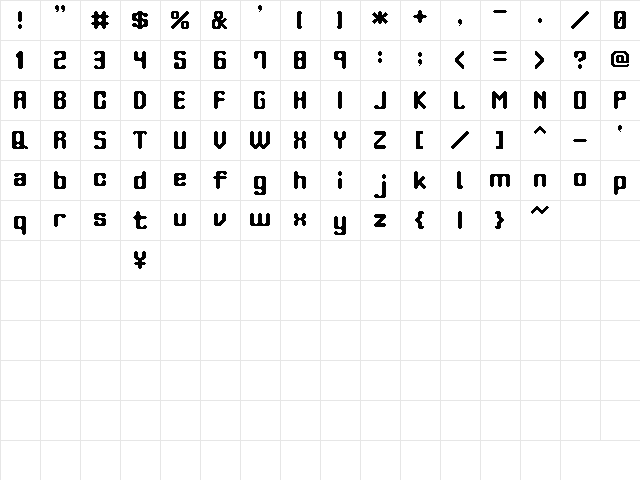
orange phone Regular Font Preview
orange phone Regular
Design Context for orange phone Typeface
orange phone is a composed and adaptable typeface that performs quietly and consistently across a wide range of design contexts.
Pro Tip: Use orange phone in both headline and body roles to test its range before committing to a single application.